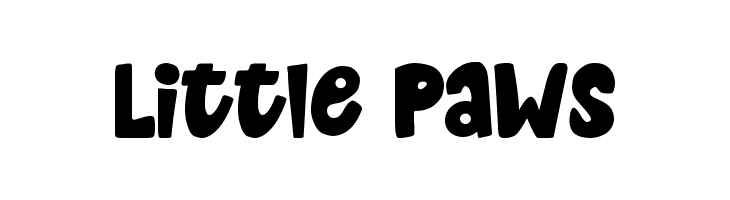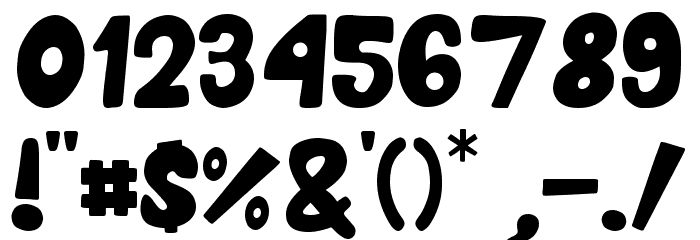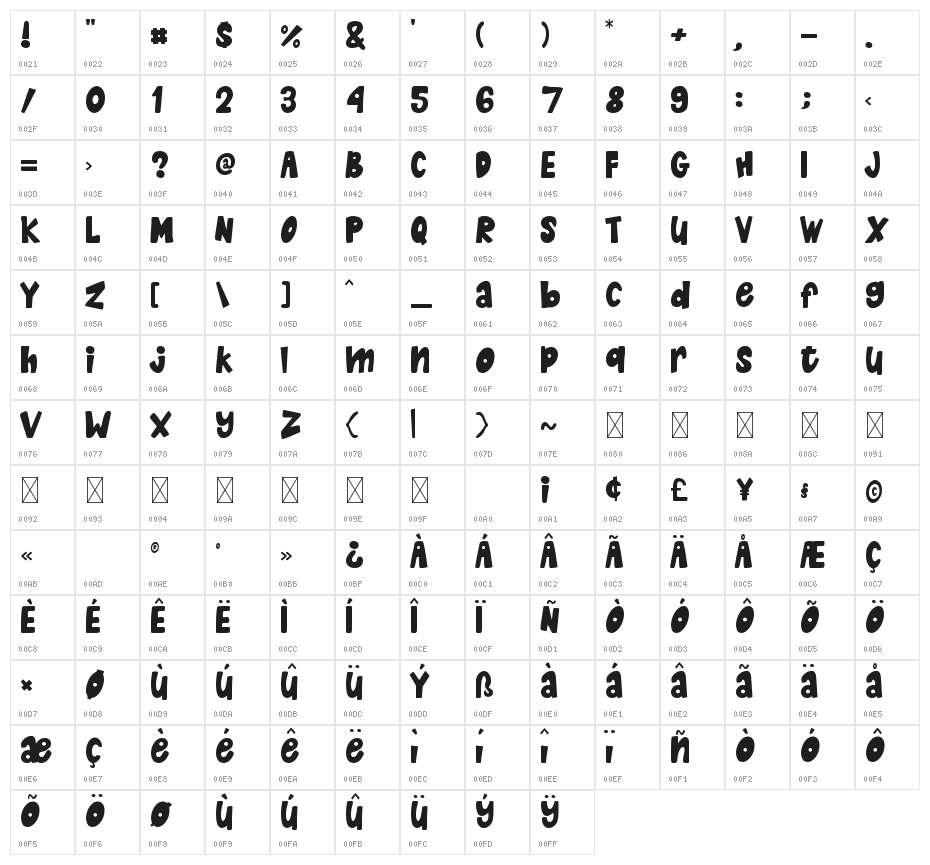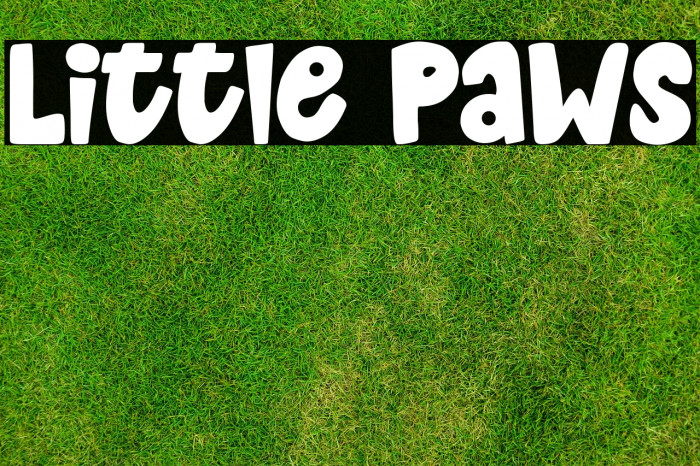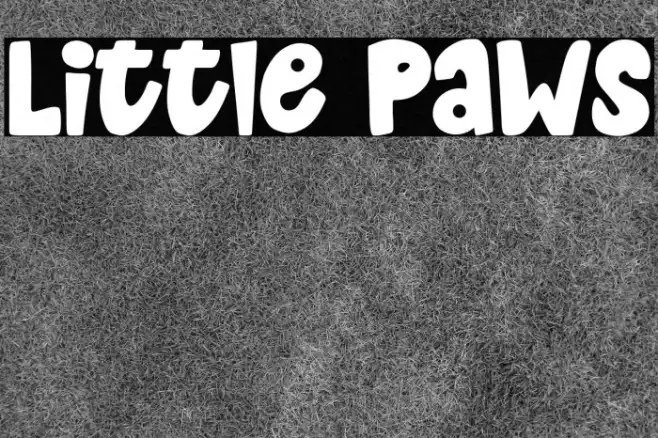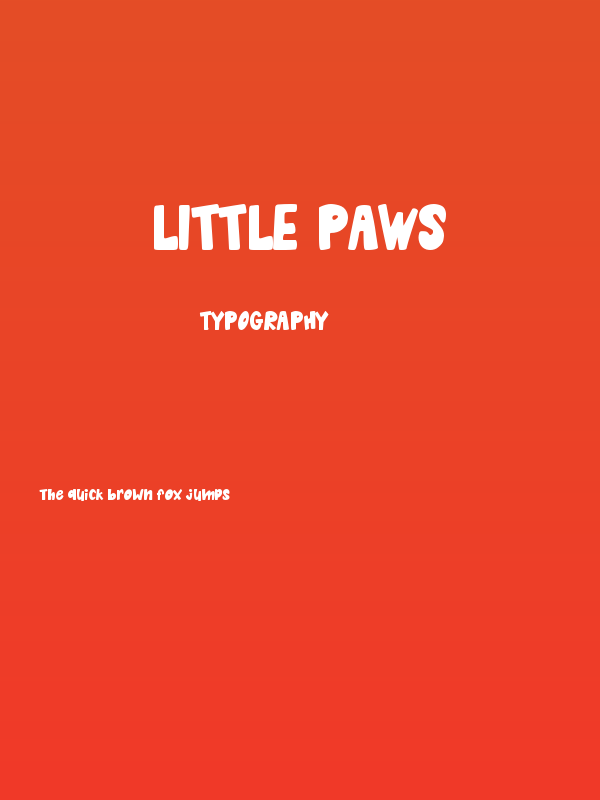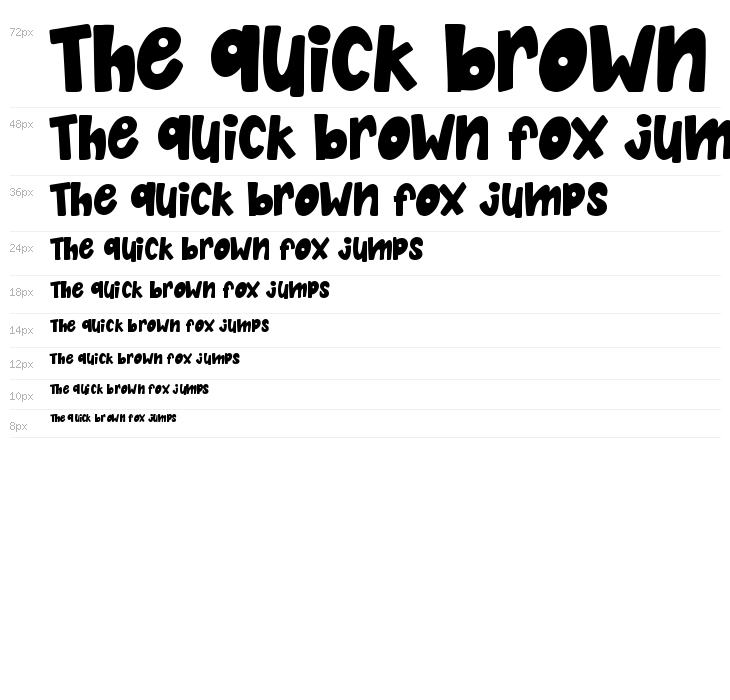
Little Paws Font
Little Paws Description
This playful and bold font features thick, rounded characters that convey a sense of fun and whimsy. The letters are slightly irregular, adding a hand-drawn feel that enhances its charm. The uppercase and lowercase letters maintain a consistent style, with a slight tilt that gives them a dynamic appearance. The numbers and special characters are equally bold and rounded, ensuring a cohesive look across all elements. This font is perfect for projects that require a friendly and approachable aesthetic, making it ideal for children's books, playful branding, or casual invitations.
| Proposed Projects | Ideal for children's books, playful branding, casual invitations, and fun posters. |